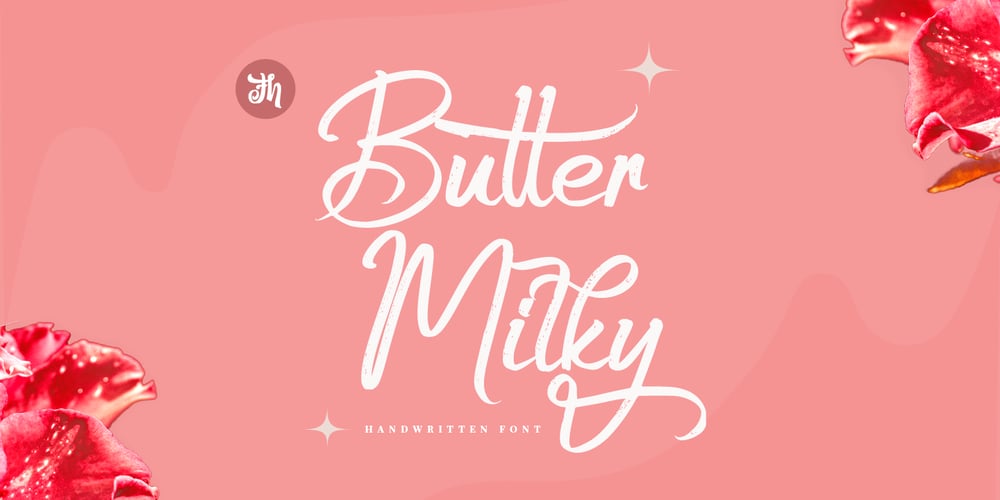
Butter Milky Font Family was designed by Ferry Hadriyan and published by FHFont. Butter Milky contains 1 styles and family package options. Butter Milky is script font with handwritten vintage calligraphy style, with OpenType feature include of the font. Suitable for design, element design, event, logo.